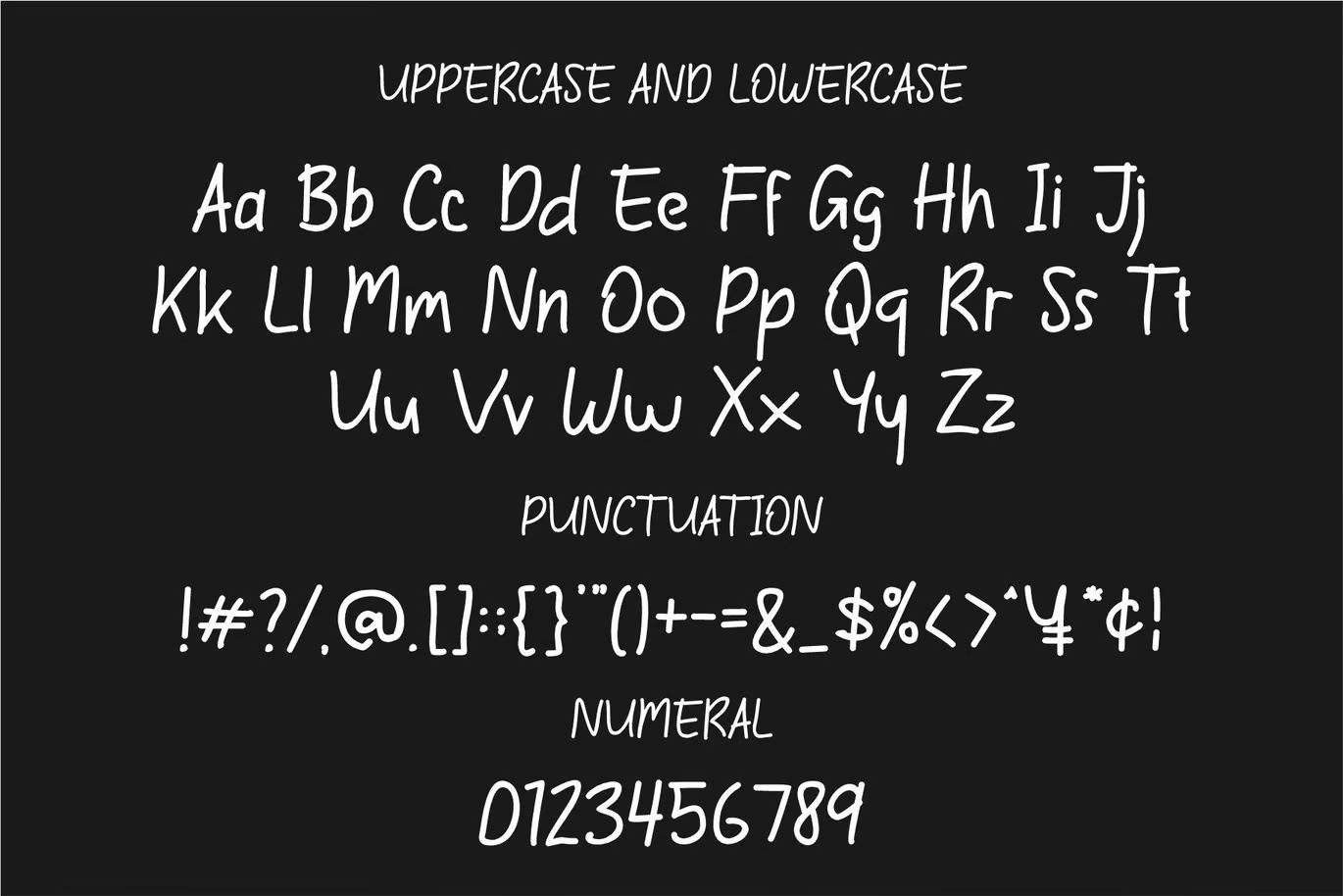
Scratches Marker Handwritten Font
Introducing Screthes Marker – a handwritten, unique display font with a modern, trendy, and bouncy feel. This cute display font features a distinctive wood-themed character, making it perfect for various creative projects.
Ideal for invitation card designs, company logos, movie titles, business cards, book covers, brand identities, and more, Screthes Marker adds a playful yet stylish touch to any design.
Scratches Marker Handwritten Display Font